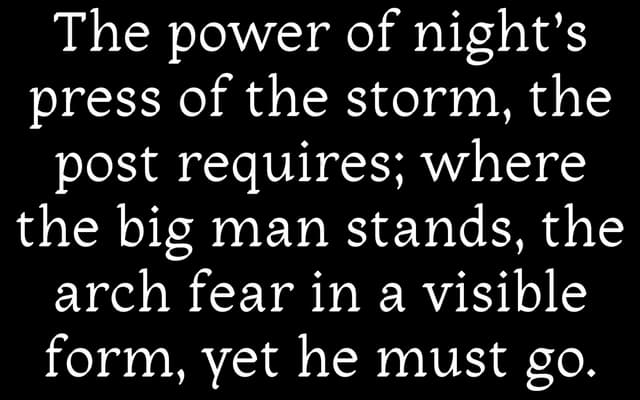
Sandleford Regular
A calligraphic text serif designed to pair with Sandleford Italic, carrying 756 glyphs including small caps and ligatures.
Sandleford Regular forms one half of a two-part family alongside Sandleford Italic, together making a calligraphic text serif with ambitions toward display use. The glyph set runs to 756 characters, covering small caps, ligatures and a broad range of foreign language characters across dozens of scripts. Priced at $35 per user licence.
Described as a calligraphic text font with display aspirations, placing it in the calligraphic serif tradition where pen-influenced letterforms are refined for sustained reading.